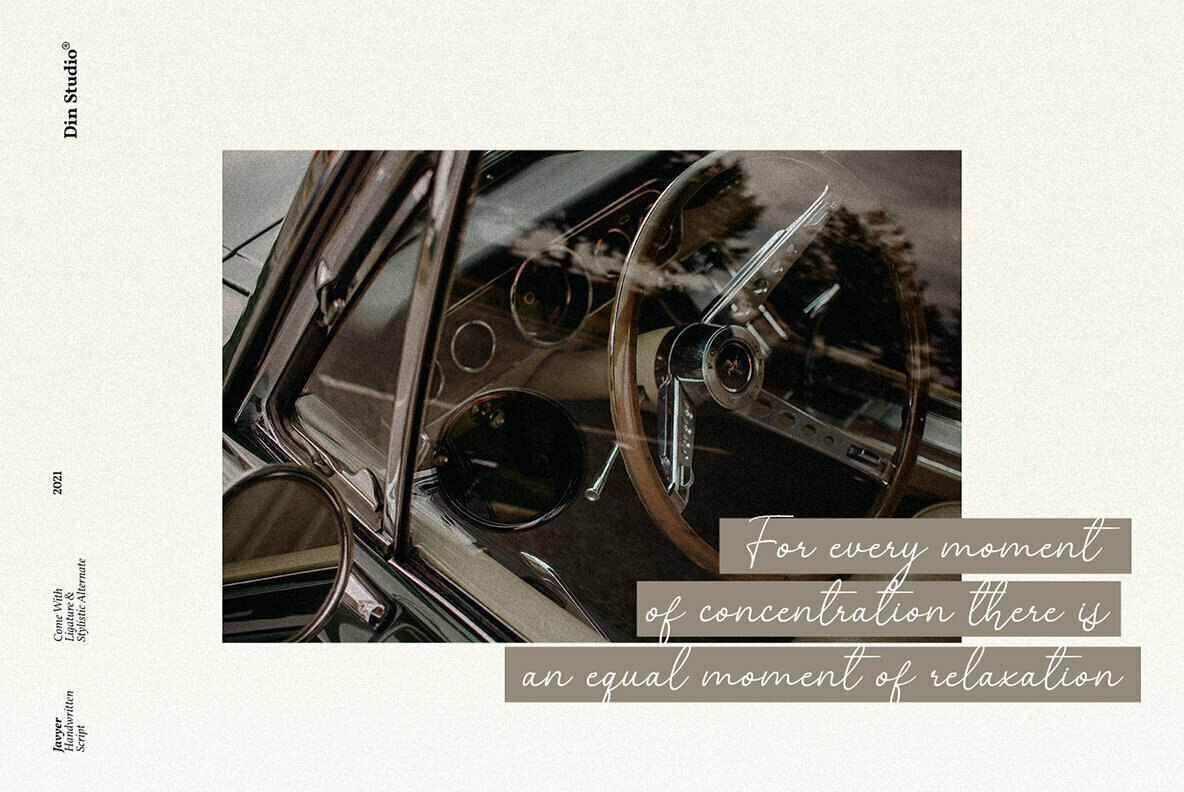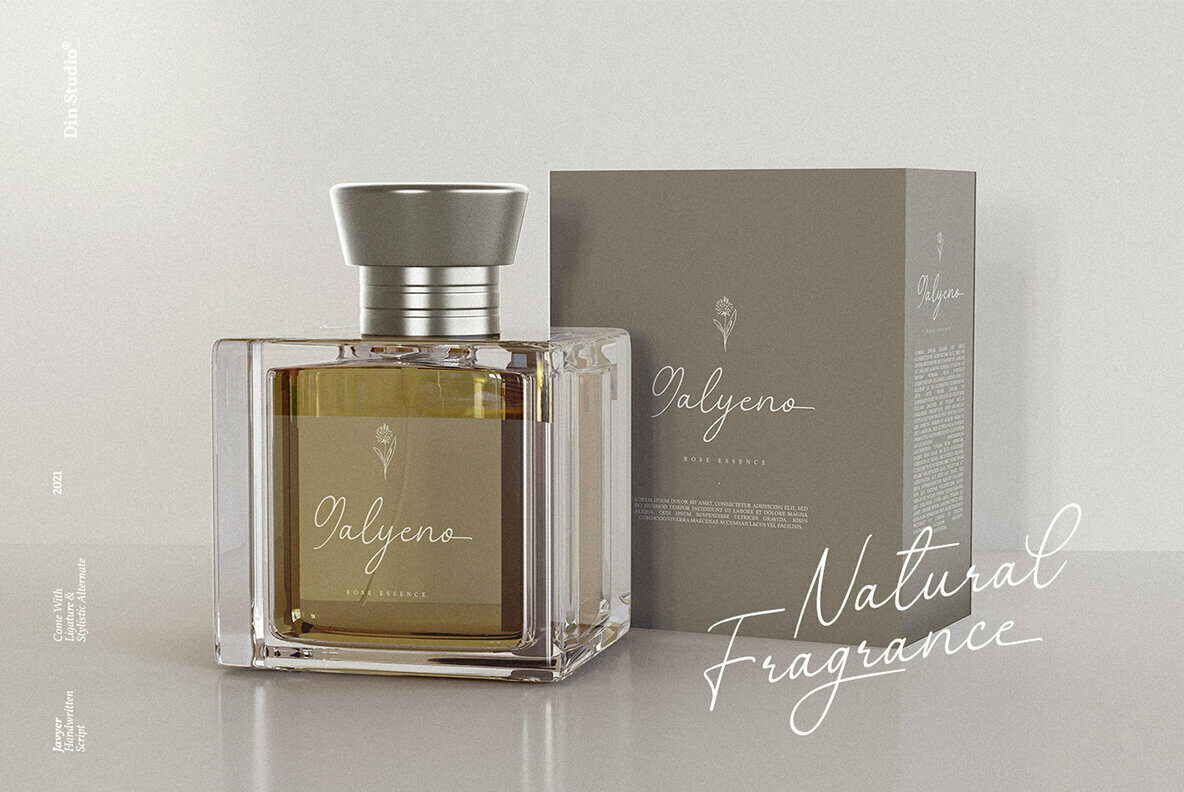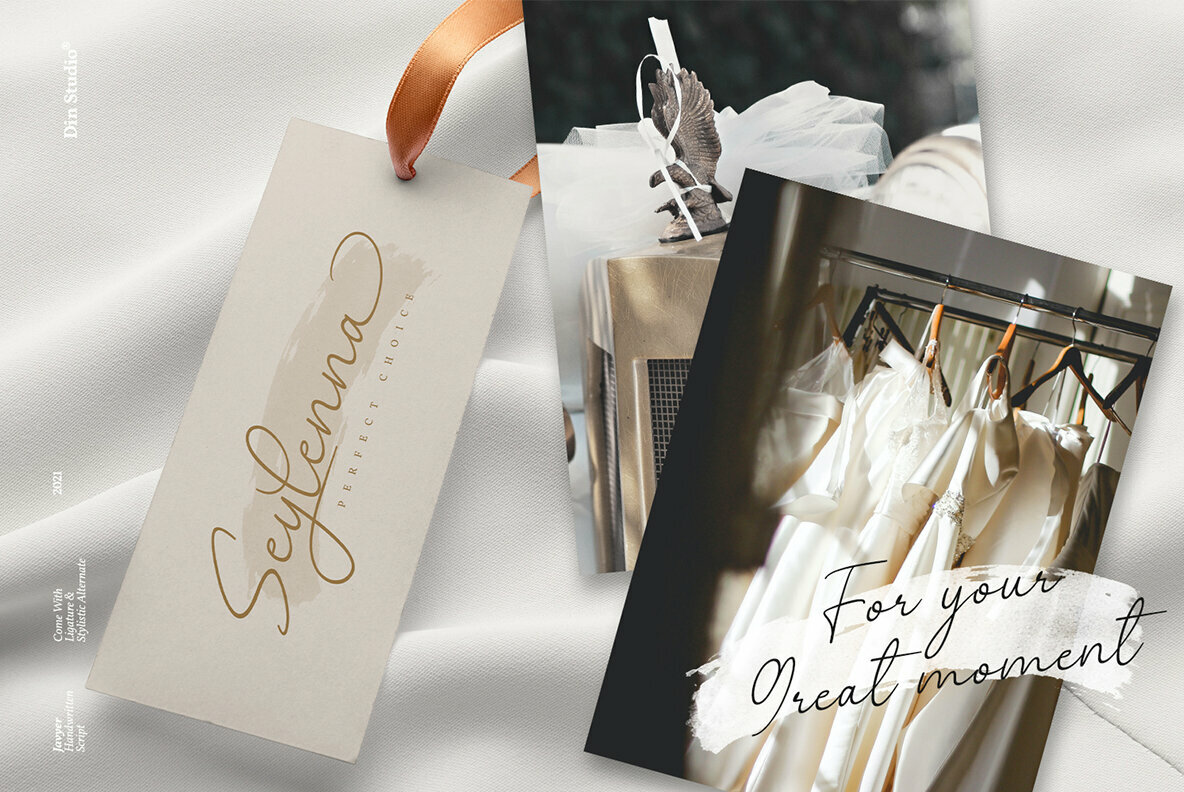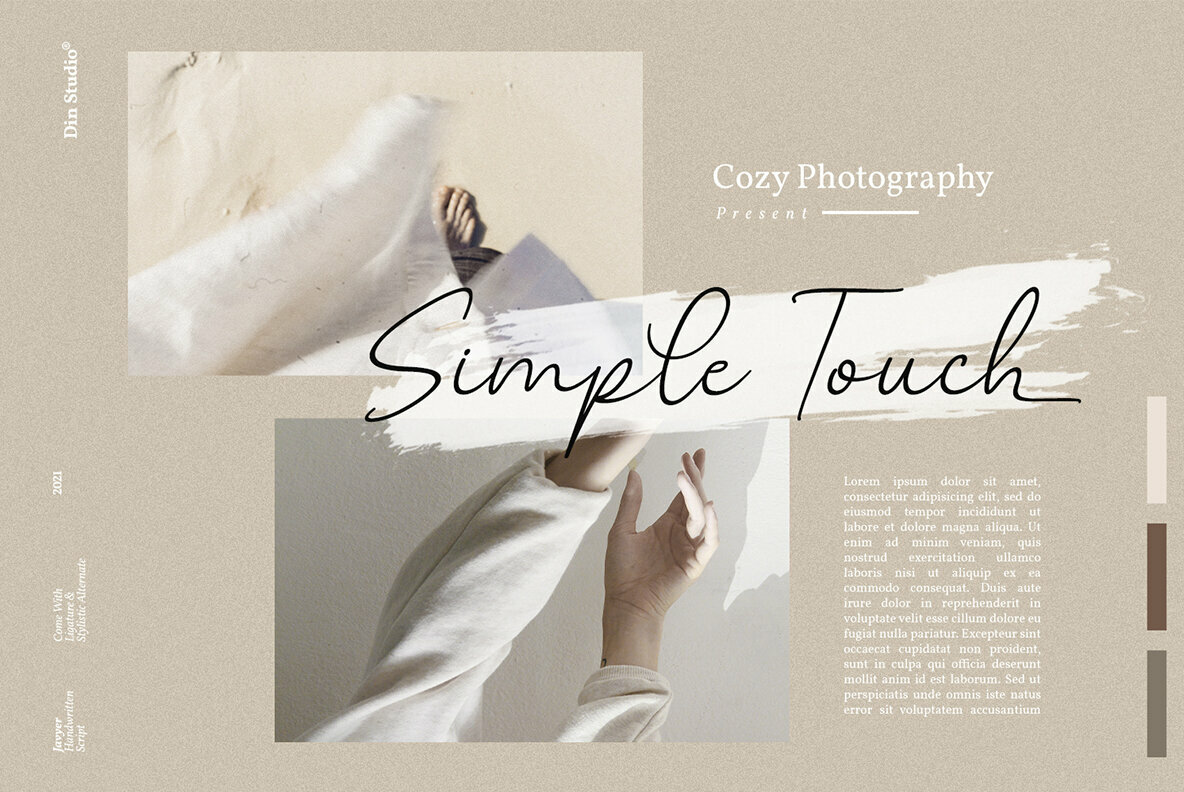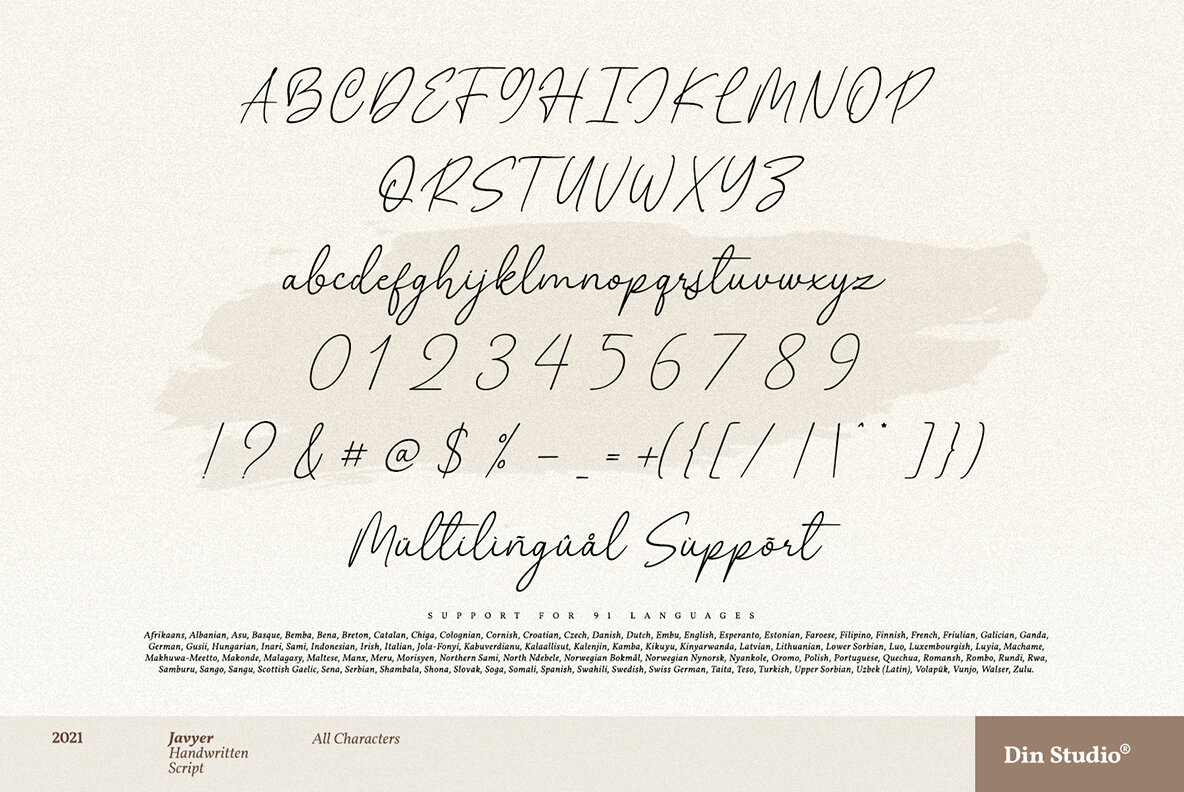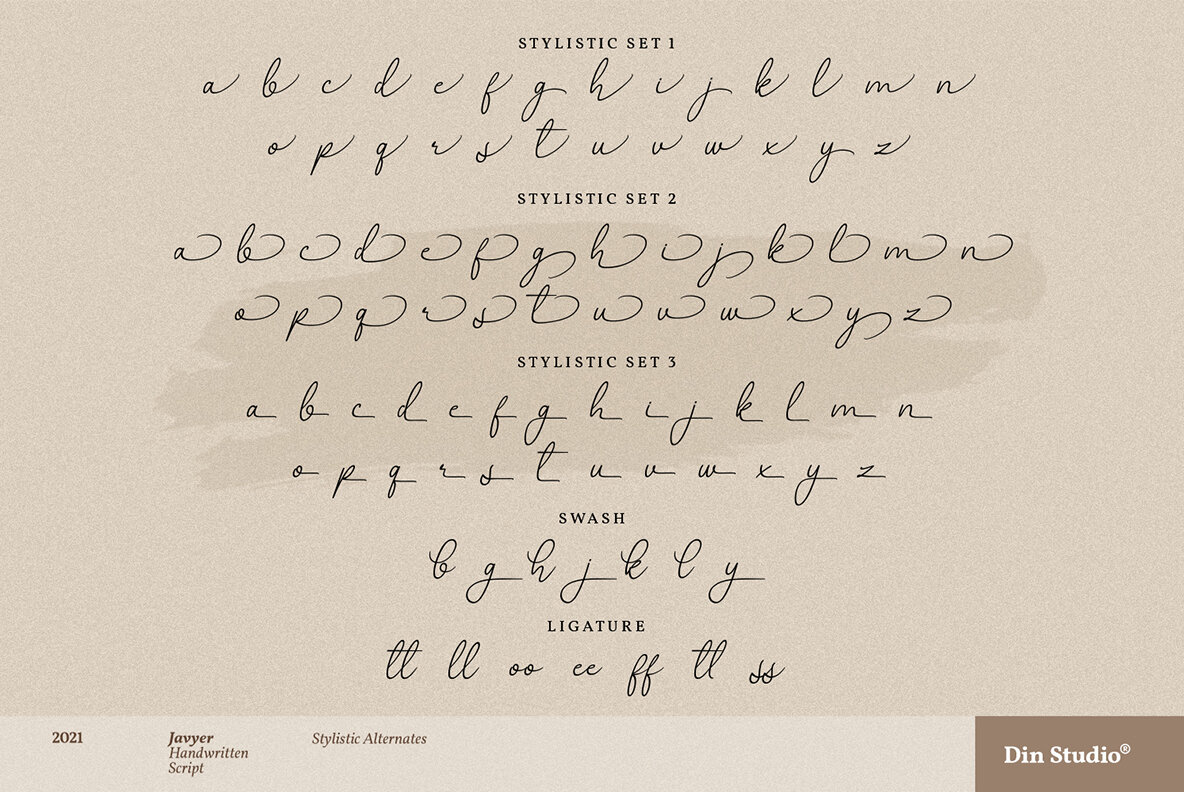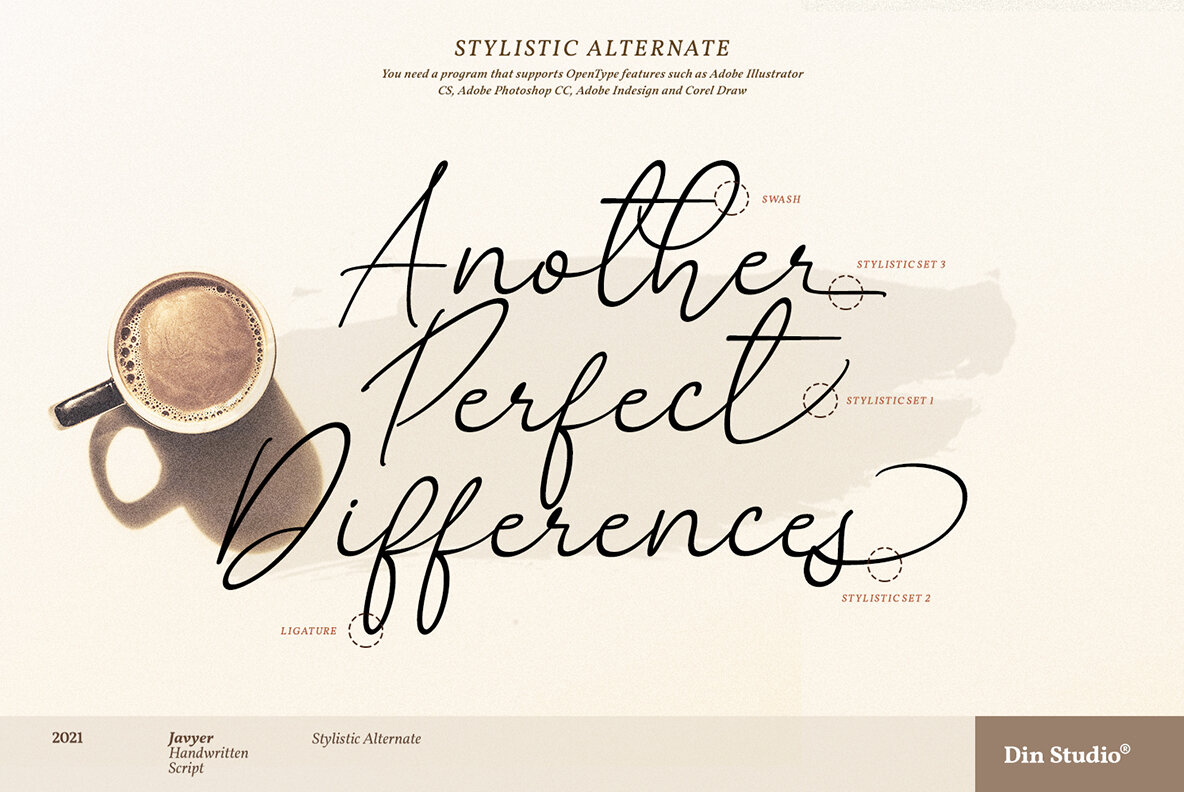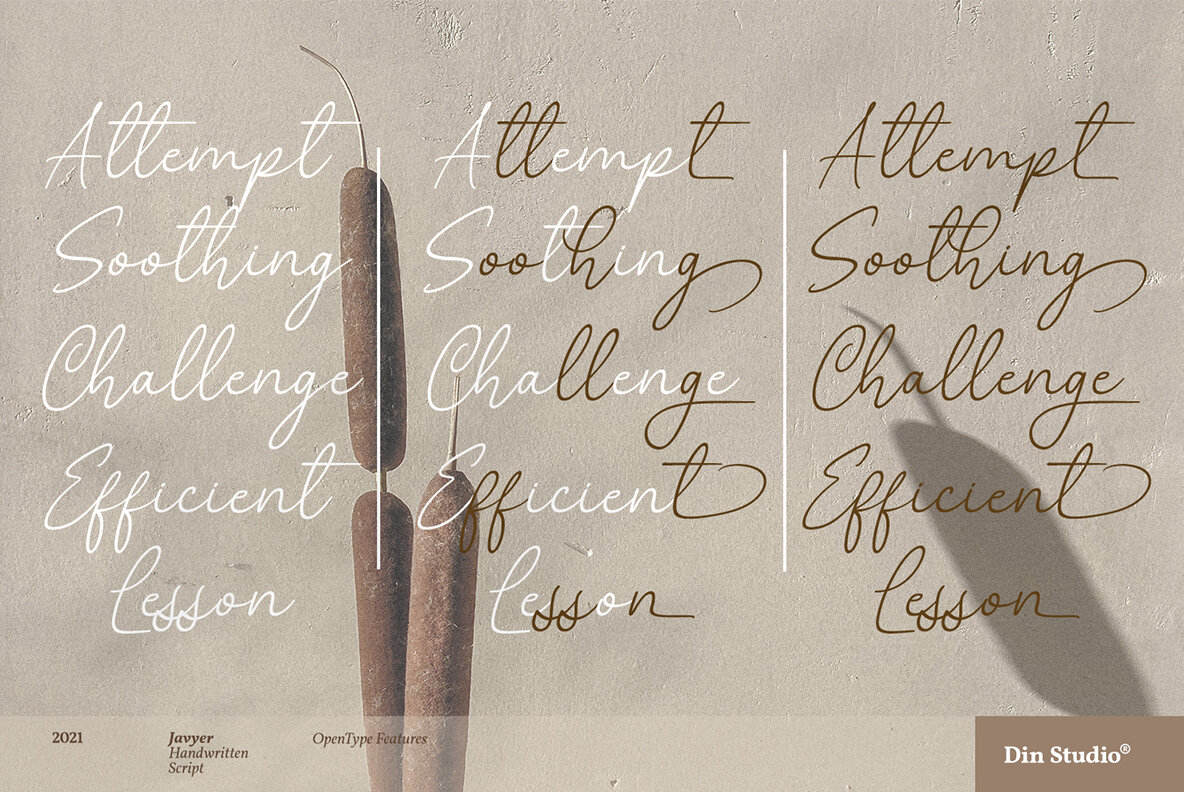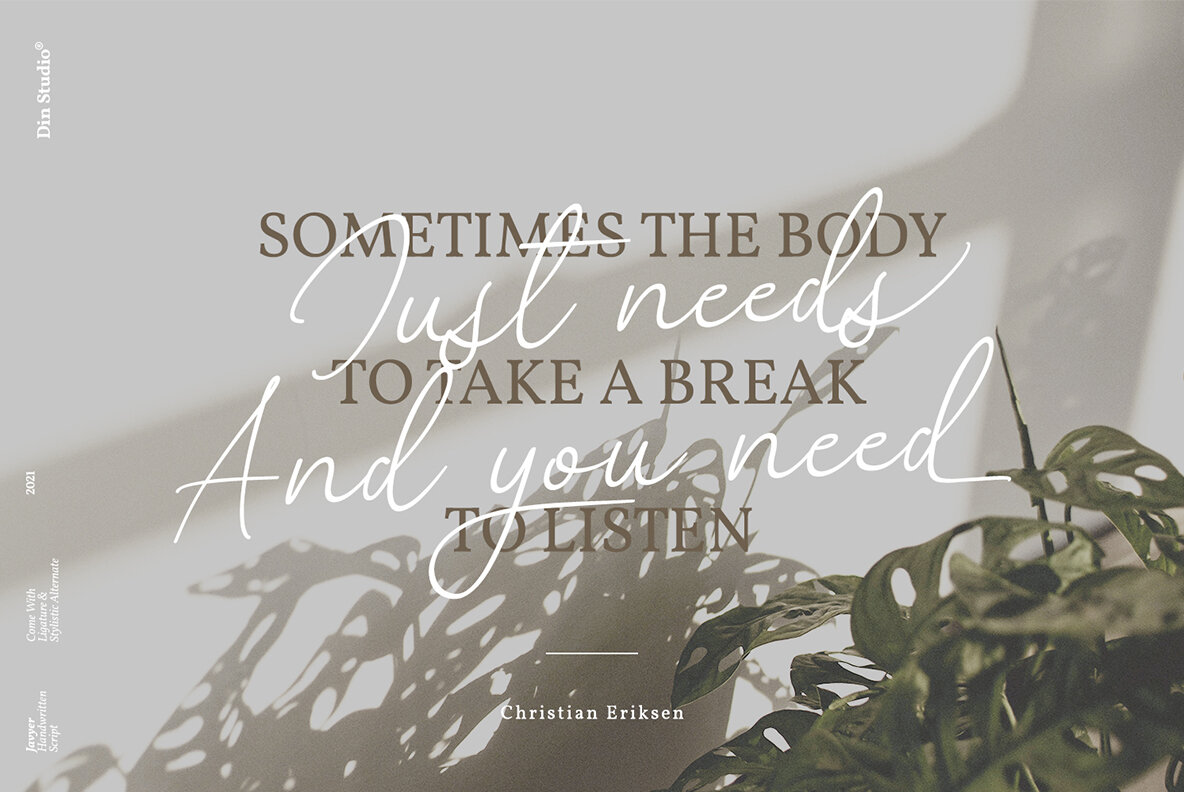
Javyer Font
Javyer
The Javyer font by Din Studio presents an exquisite blend of elegance and versatility, making it a captivating choice for a multitude of design projects. Its handcrafted aesthetic is particularly suited for website embellishments, social media branding, and vibrant Pinterest banners. This font’s style adds sophistication to printed products, ensuring they stand out in any promotional context.Javyer: A Signature Font with Timeless Elegance